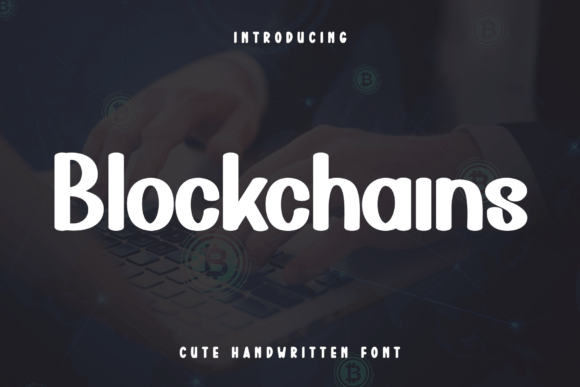
The Cozy Charm of Blockchains Font: A Designer’s Delight
I’ll never forget the moment I stumbled upon Blockchains Font while working on a wedding invitation project. My client wanted a font that would add a touch of warmth and personality to the design, but I was struggling to find the perfect fit. That was until I discovered Blockchains Font, a charming, handwritten display font that instantly captured the cozy essence I was looking for.
As I started experimenting with Blockchains Font, I fell in love with its affable character and the way it seemed to infuse my designs with a distinctive coziness. Here are a few things that make this font stand out:
- ✨ Unique character: Blockchains Font has a one-of-a-kind personality that sets it apart from other handwritten fonts.
- ✅ Ease of use: The font is incredibly easy to read and works beautifully in a variety of design applications.
- 💫 Versatility: From wedding invitations to greeting cards, Blockchains Font is perfect for adding a touch of warmth to any design project.
Of course, no font is perfect, and Blockchains Font has a few minor quirks:
- 🤔 Limited suitability for body text: While Blockchains Font is amazing for display text, it may not be the best choice for longer blocks of text.
- ⚠️ Occasional kerning issues: As with any font, you may encounter some kerning issues, especially when using certain character combinations.
- Experiment with OpenType features, such as glyphs and stylistic alternates, to add more personality to your design.
The Story Behind Blockchains Font
Blockchains Font was designed with the intention of capturing the essence of a sincere, handwritten note. The designer aimed to create a font that would bring a touch of warmth and coziness to any design project, and it’s clear that they’ve succeeded. With its unique character and infectious energy, Blockchains Font is sure to become a favorite among designers and crafters.
| What makes Blockchains Font unique? | Blockchains Font has a distinctive, handwritten character that sets it apart from other fonts. |
| Is Blockchains Font suitable for body text? | While Blockchains Font is amazing for display text, it may not be the best choice for longer blocks of text. |